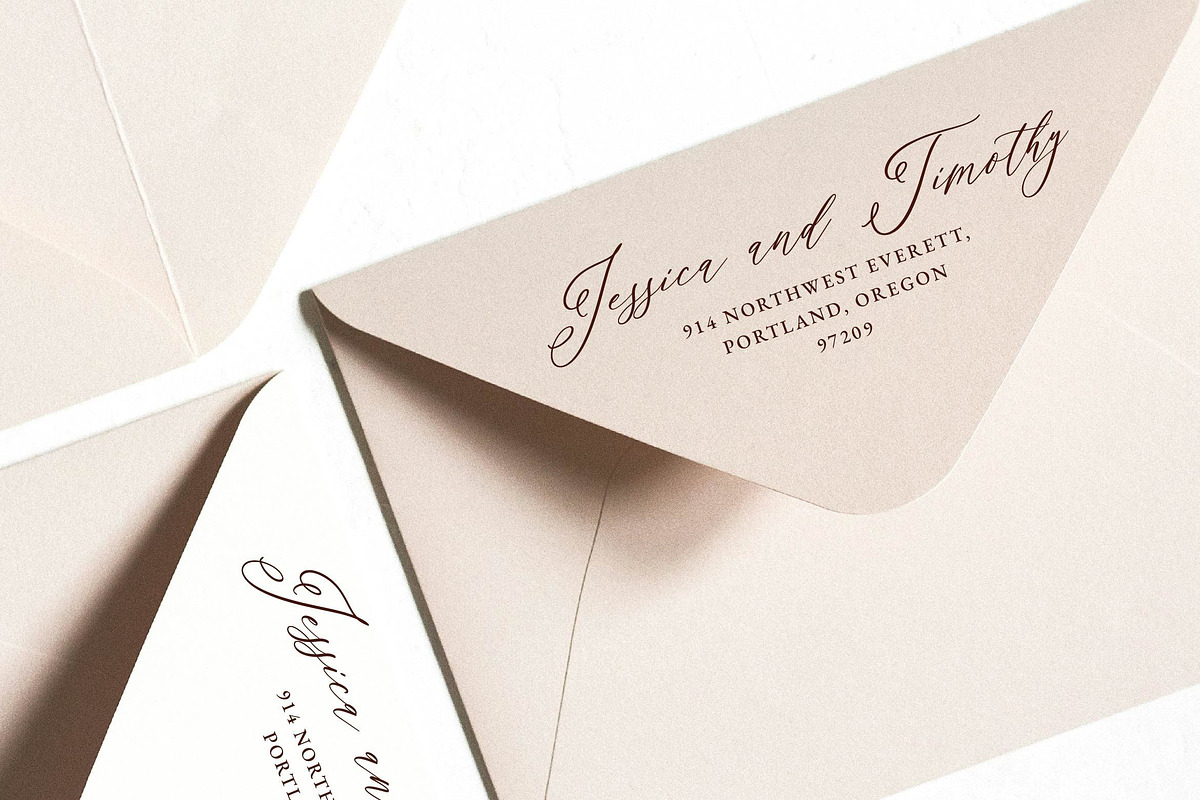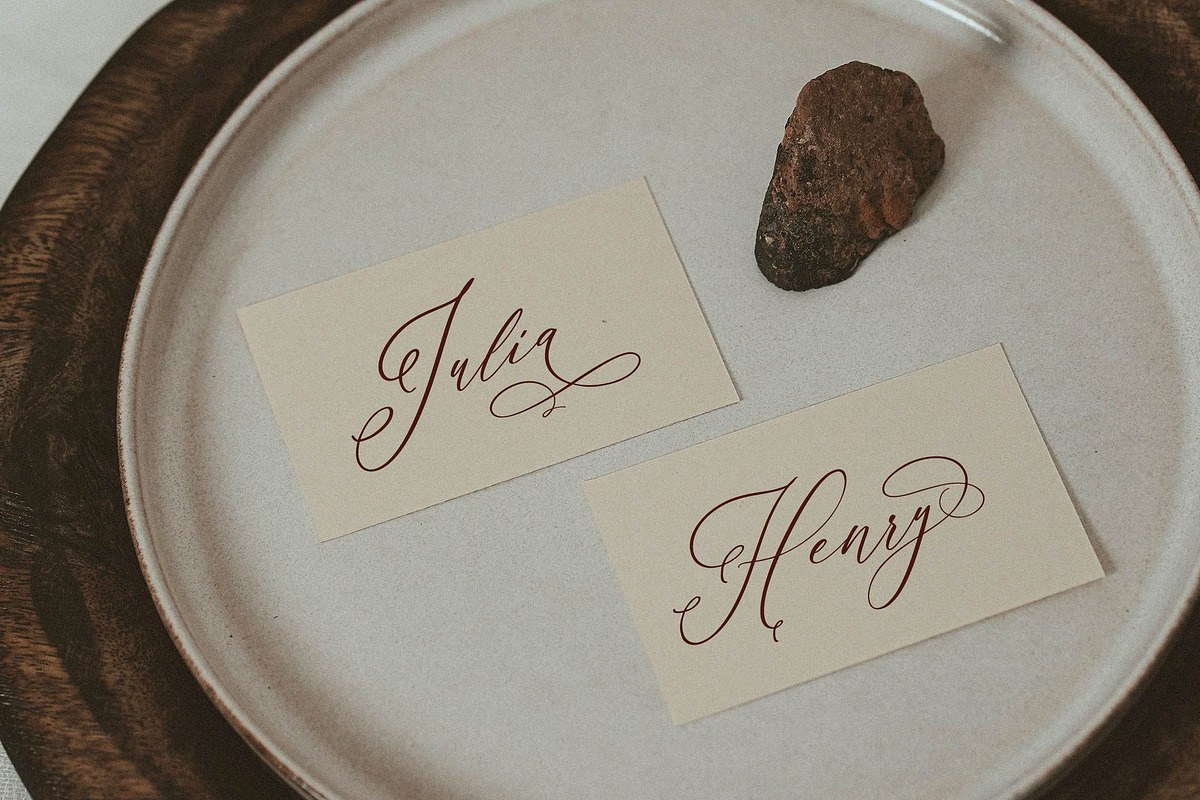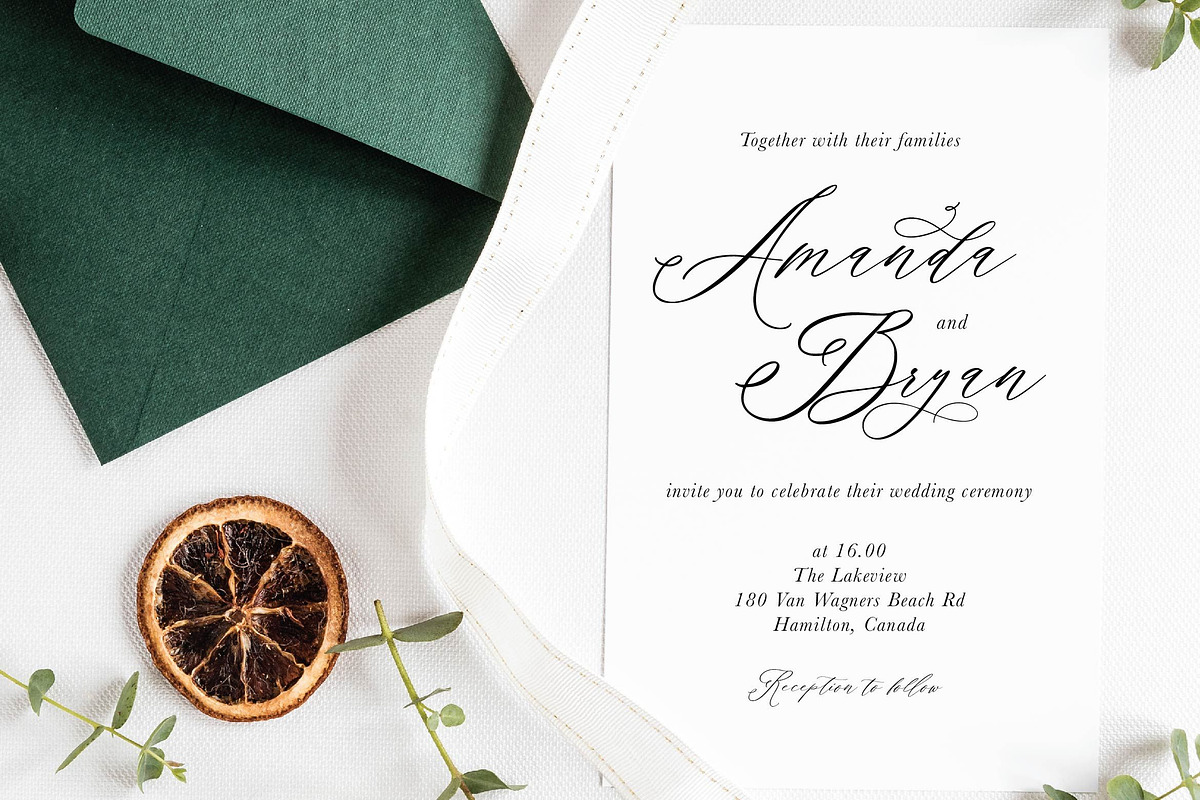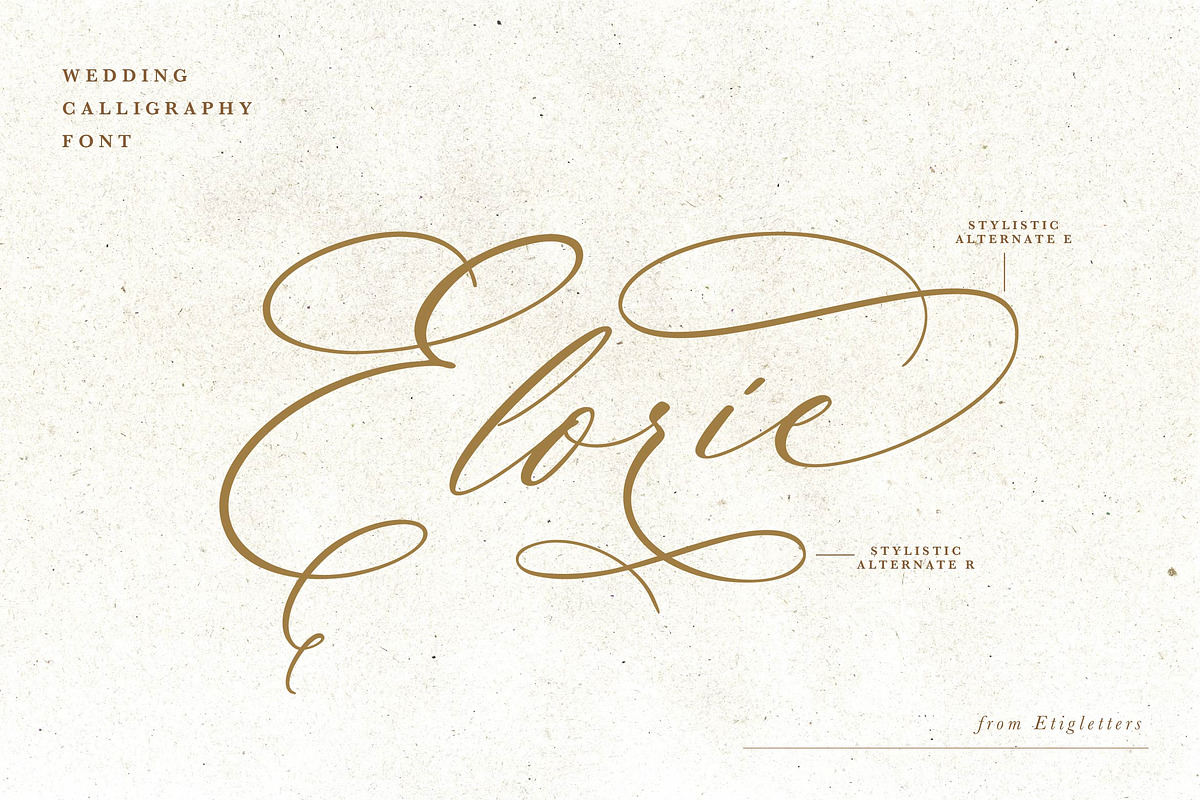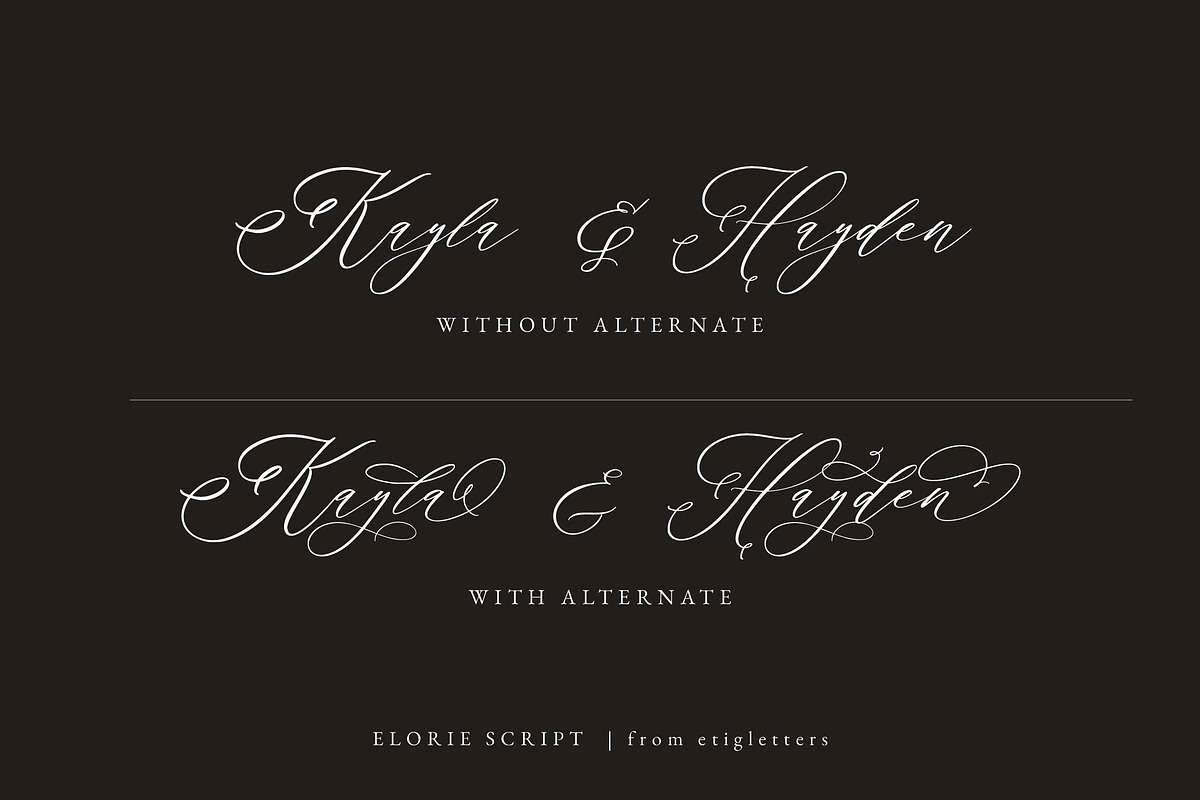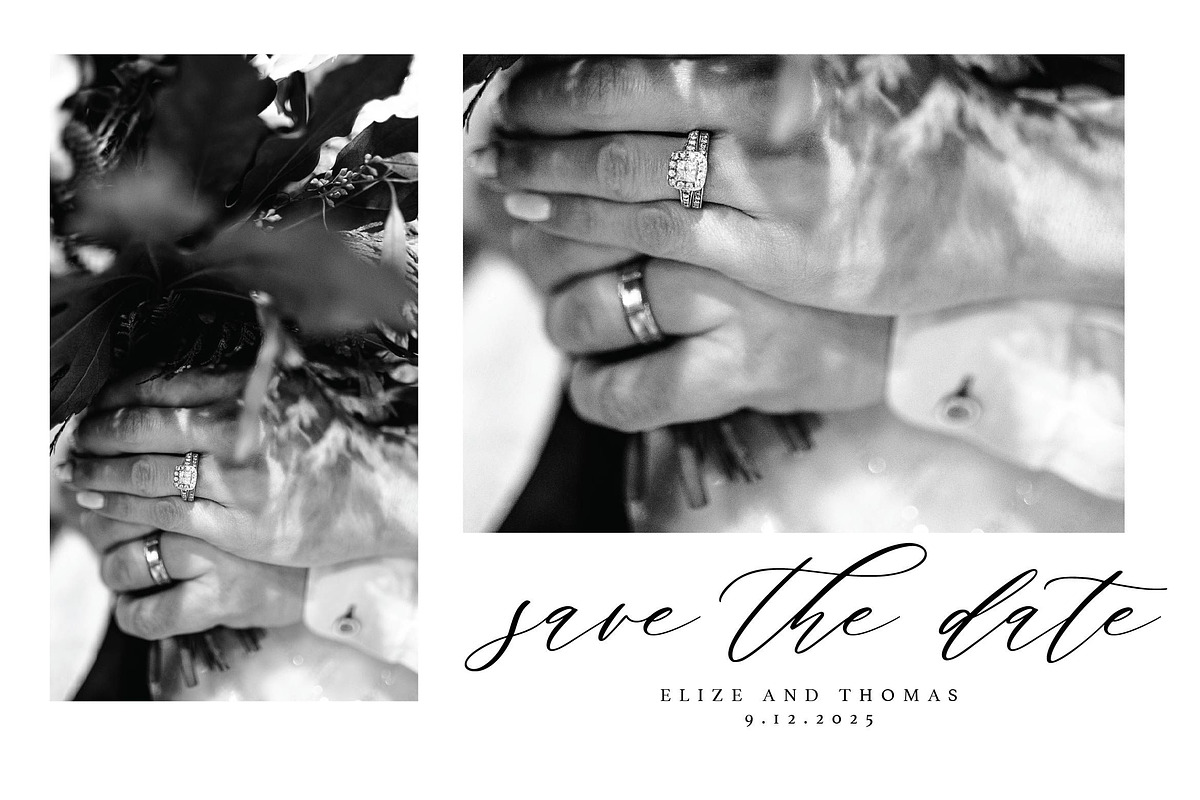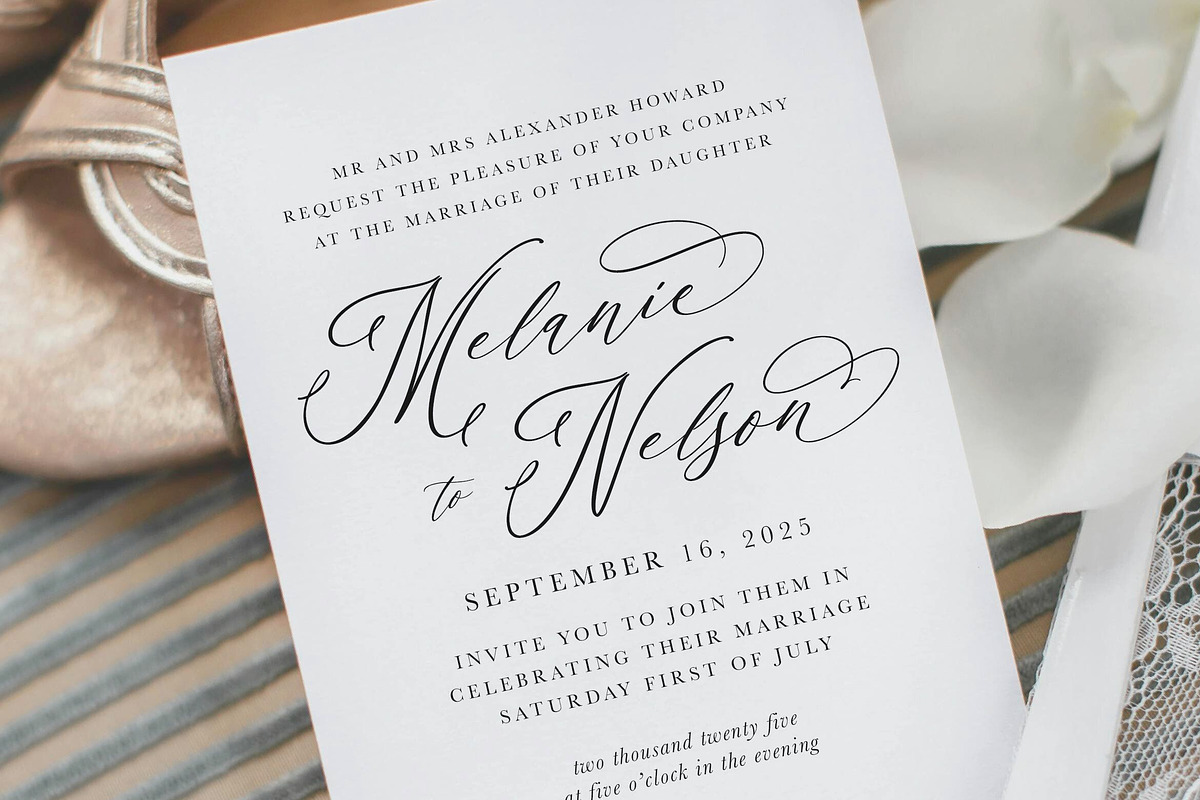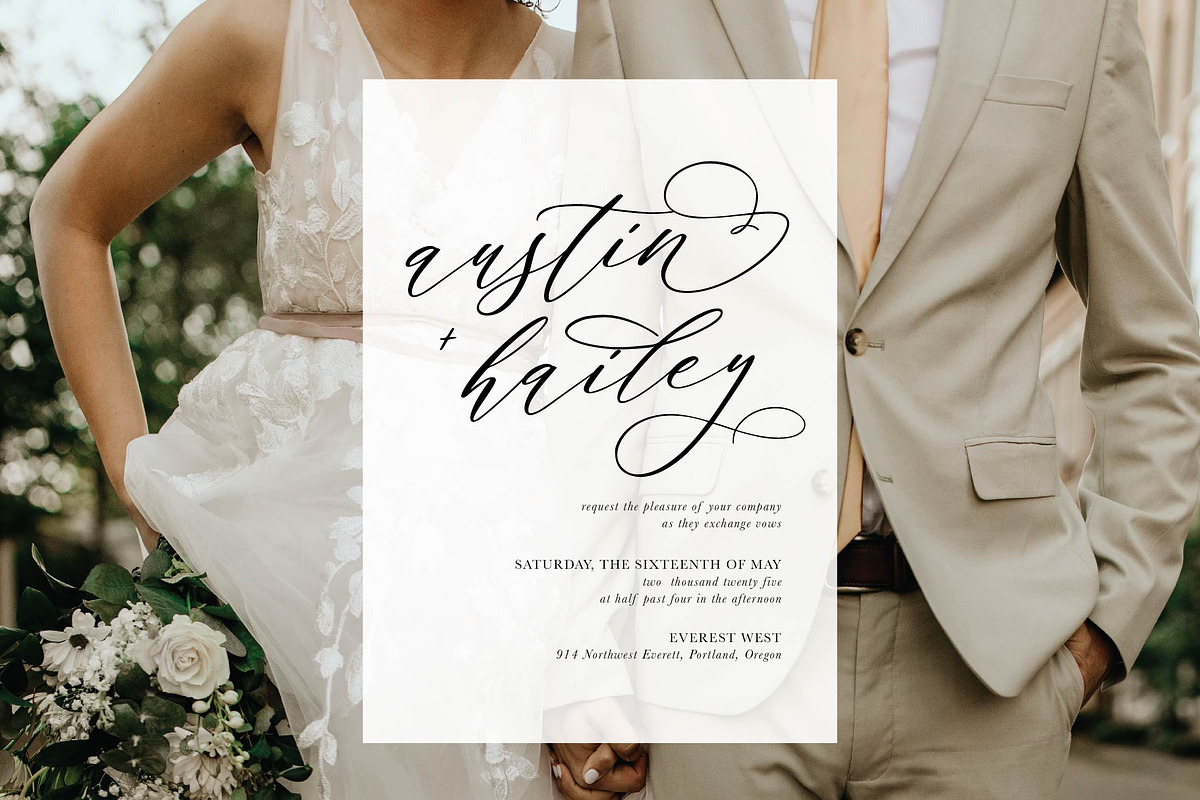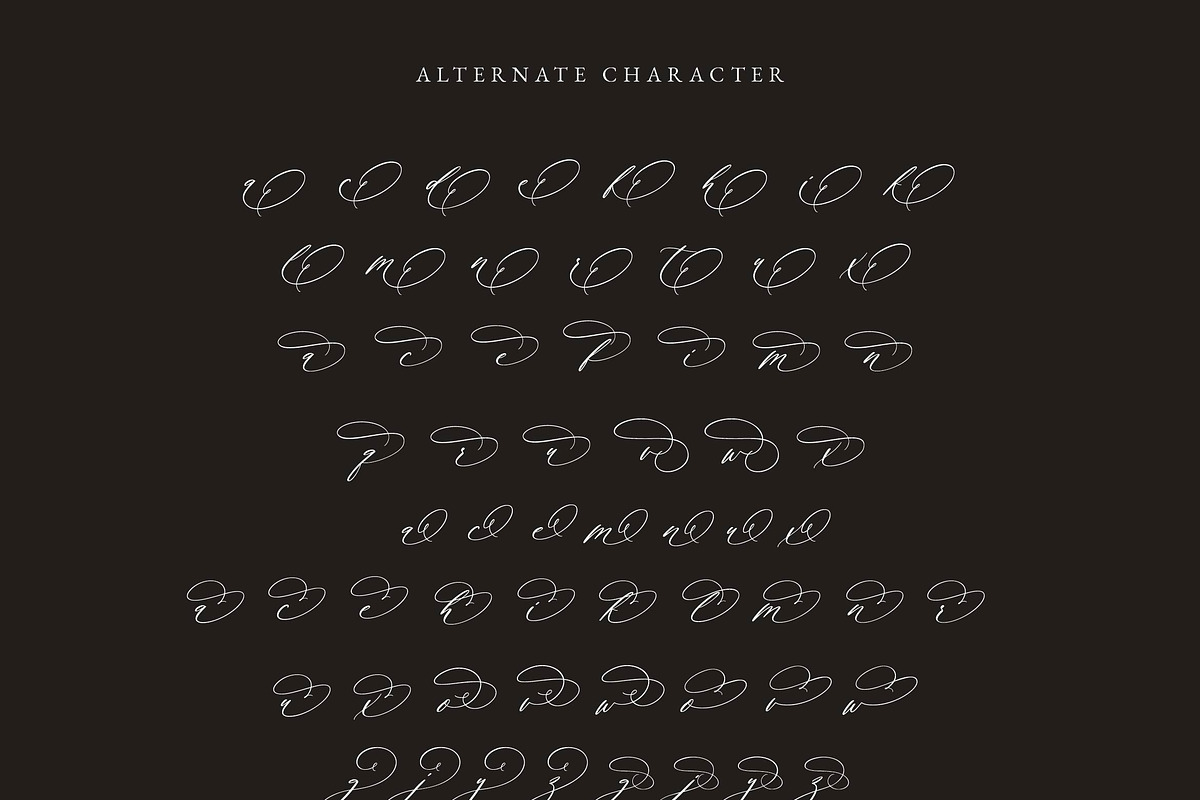
Elorie Calligraphy Script
Introducing Elorie Calligrapy Script, is a lovely elegant calligraphy font. Ideal for elegant logos, wedding stationery, websites, personal branding and any other projects requiring a handwritten and luxurious touch.
Elorie Calligrapy Script includes full set of beautiful uppercase and lowercase letters, numerals, and including ligatures. All lowercase letters include stylistic alternates with realistic handwritten style. There are Stylistic Sets 01 , Stylistic Sets 02 until Stylistic Sets 08 will make each letter different. Elorie Calligrapy Script is also support multilingual and already PUA Encoded!